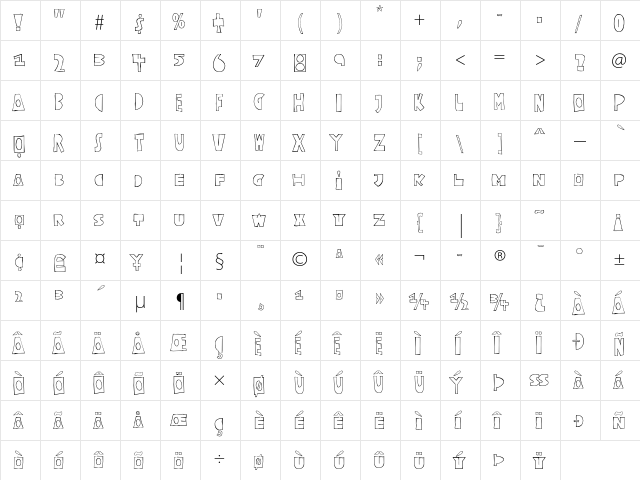
Coriander Std Regular
| Designer | Tim Donaldson |
Design Context for Coriander Std Typeface
Coriander Std is a composed and adaptable typeface that performs quietly and consistently across a wide range of design contexts.